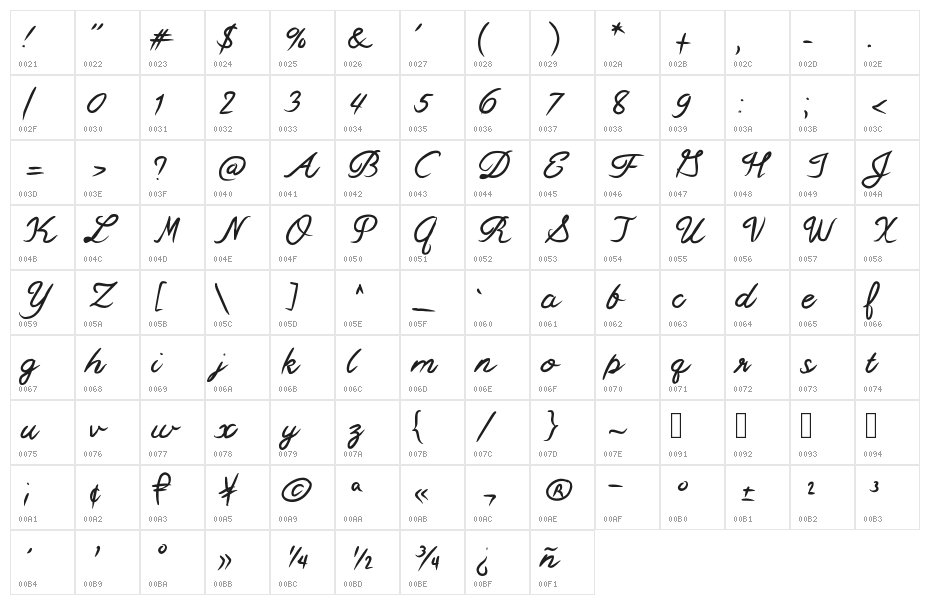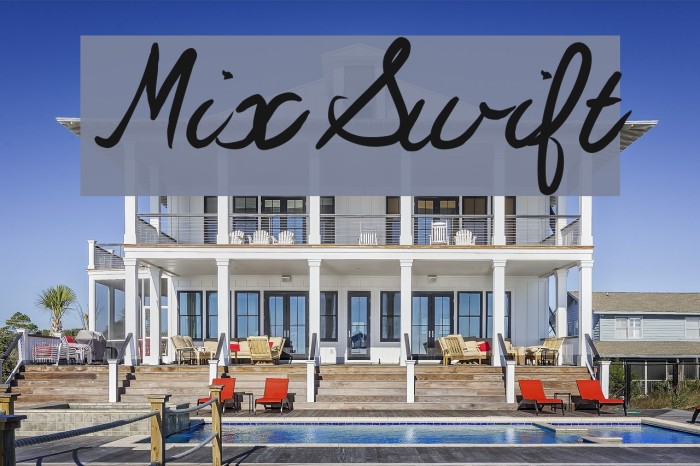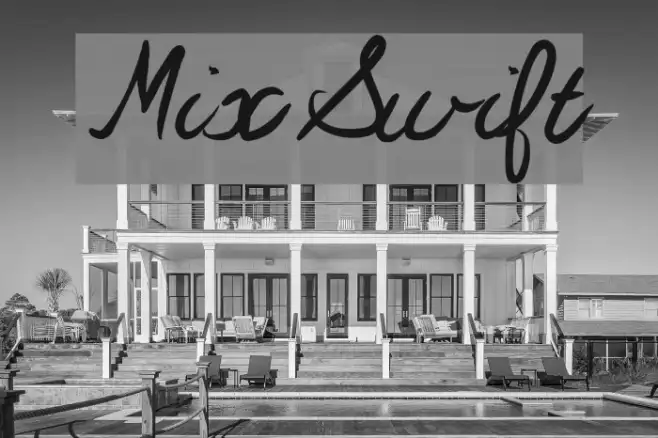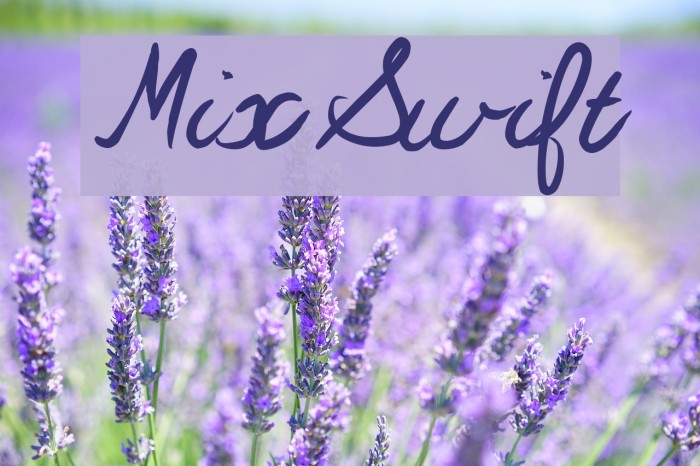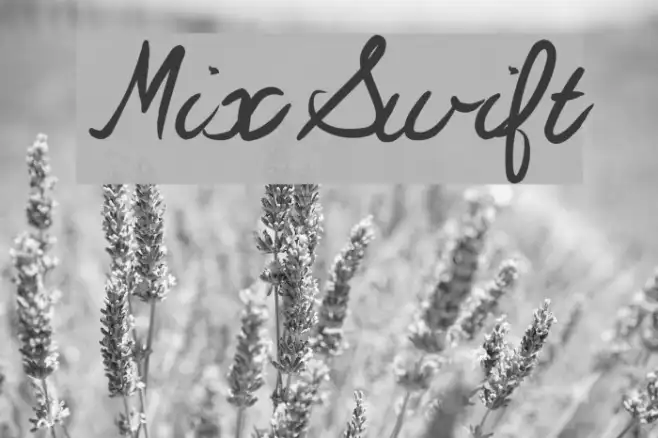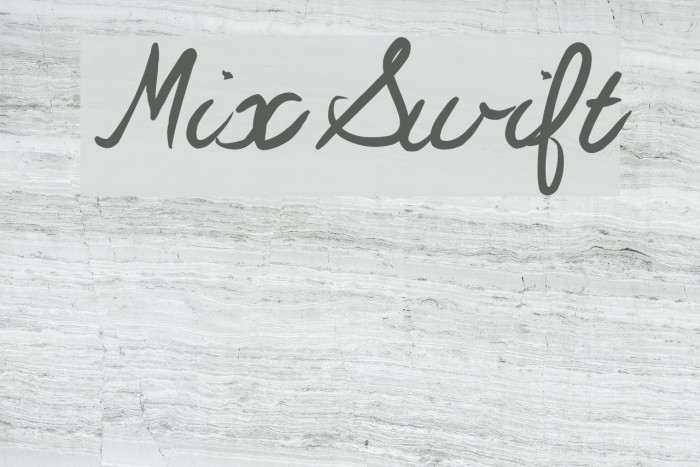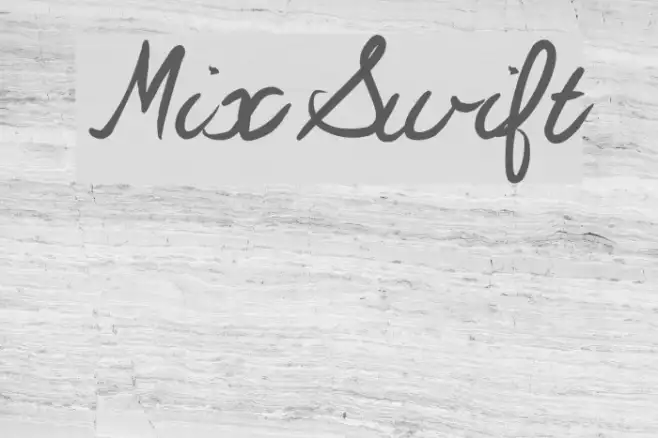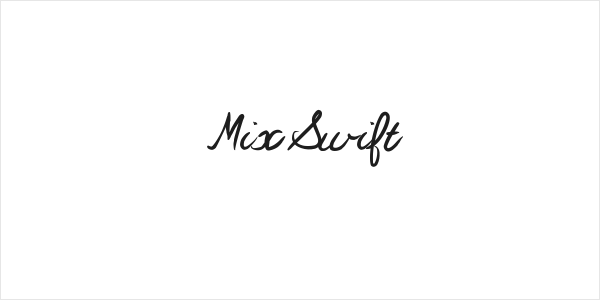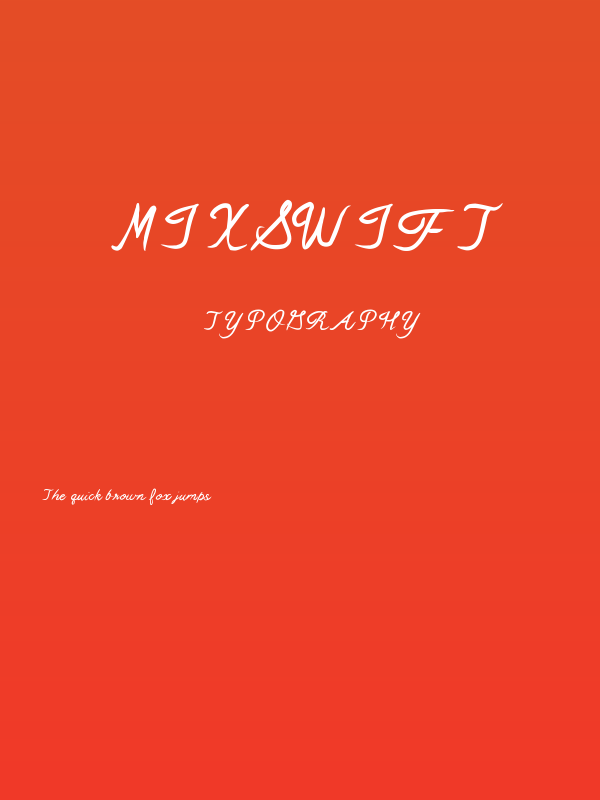
MixSwift Font
MixSwift Description
This font exudes a dynamic and fluid style, characterized by its elegant cursive script. The letters are interconnected, creating a seamless flow that mimics natural handwriting. The uppercase letters maintain a consistent height, while the lowercase letters exhibit a playful bounce, adding a touch of whimsy. The numbers are clear and legible, maintaining the same flowing style as the letters. Special characters are well-integrated, ensuring versatility in various design contexts. The overall appearance is both sophisticated and approachable, making it suitable for a range of creative projects.
| Proposed Projects | Ideal for wedding invitations, greeting cards, personal branding, and elegant packaging designs. |